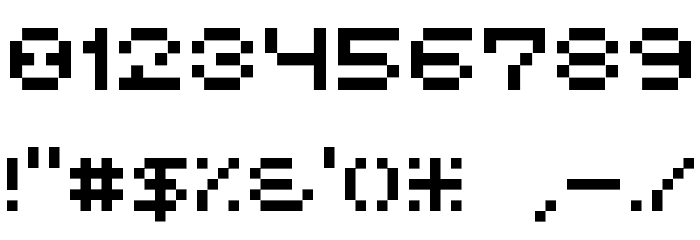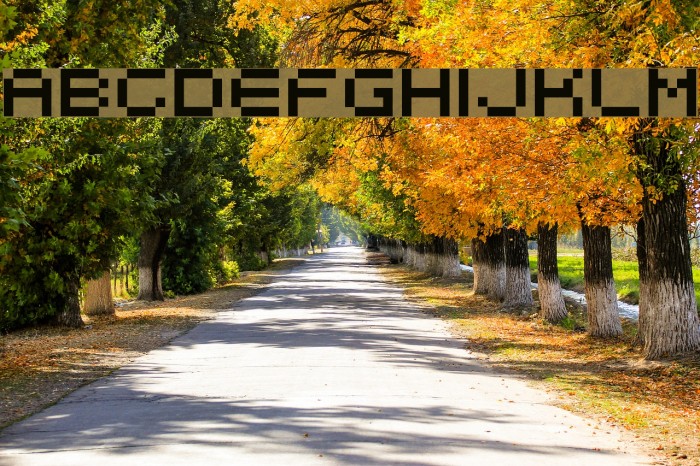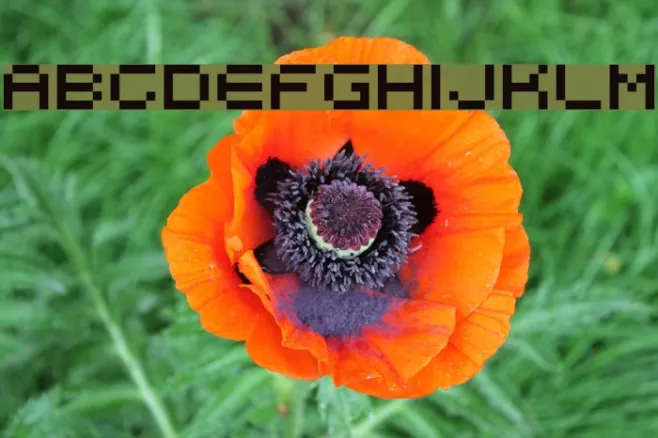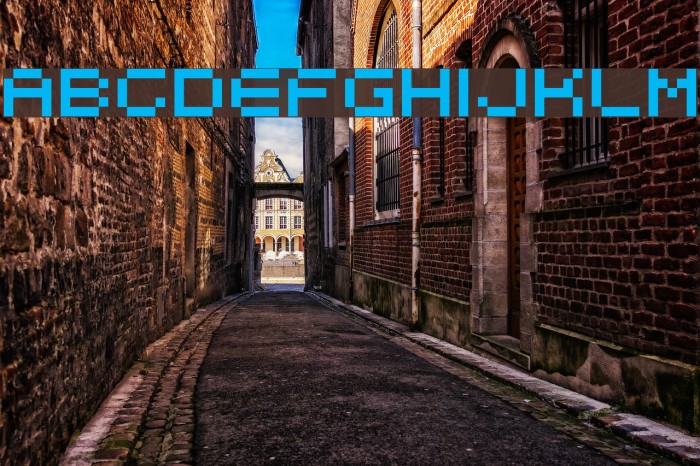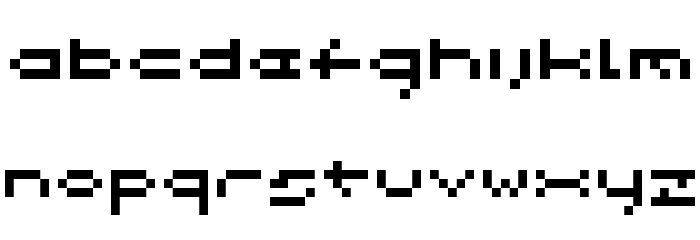
Spacebit Font
Spacebit Description
This font features a pixelated, blocky design reminiscent of early digital displays and retro video games. Each character is constructed with a uniform grid-like structure, giving it a distinctly digital and futuristic appearance. The uppercase and lowercase letters maintain a consistent height and width, contributing to a cohesive and organized look. The numerals and special characters follow the same pixelated style, ensuring uniformity across the entire character set. This font's geometric and minimalist design makes it ideal for projects that aim to evoke a sense of nostalgia or a digital theme.
| Overall Style | Retro, Digital |
| Use Case | Headlines, Logos, Digital Displays |
| Proposed Projects | Ideal for video game graphics, tech-themed posters, retro digital interfaces, and any project requiring a nostalgic digital look. |